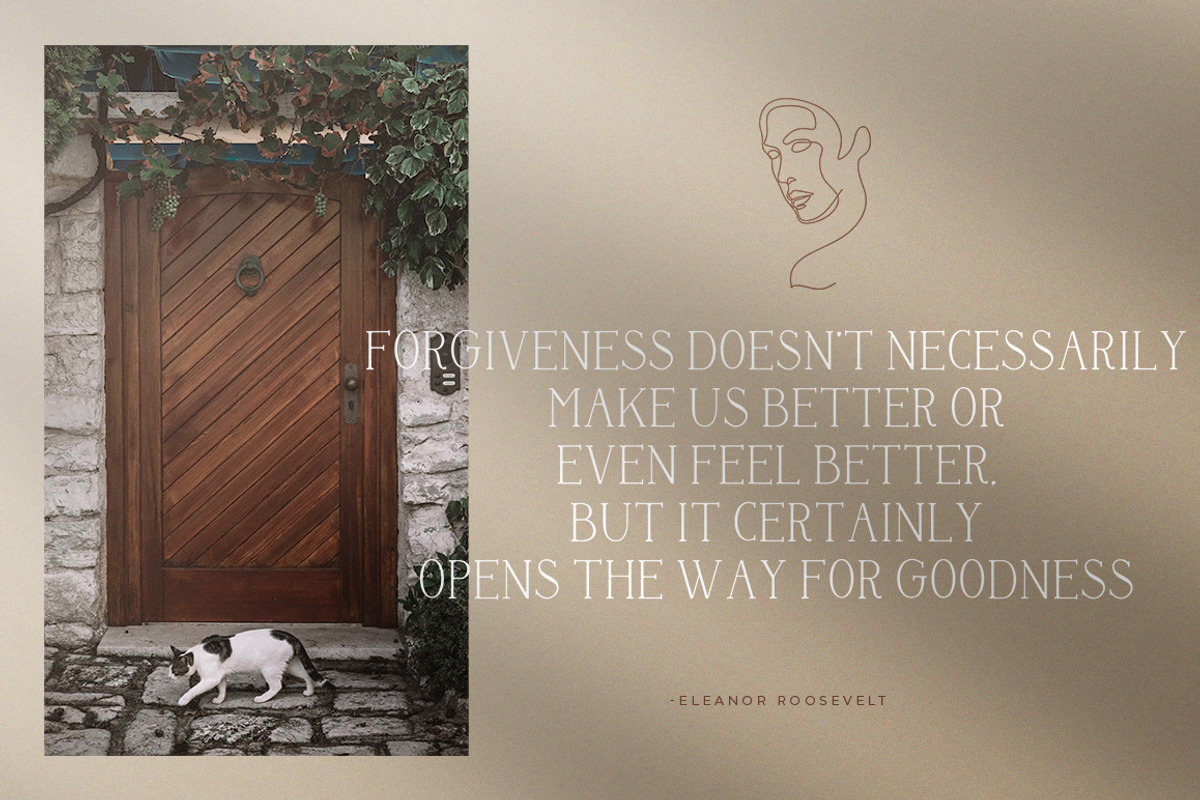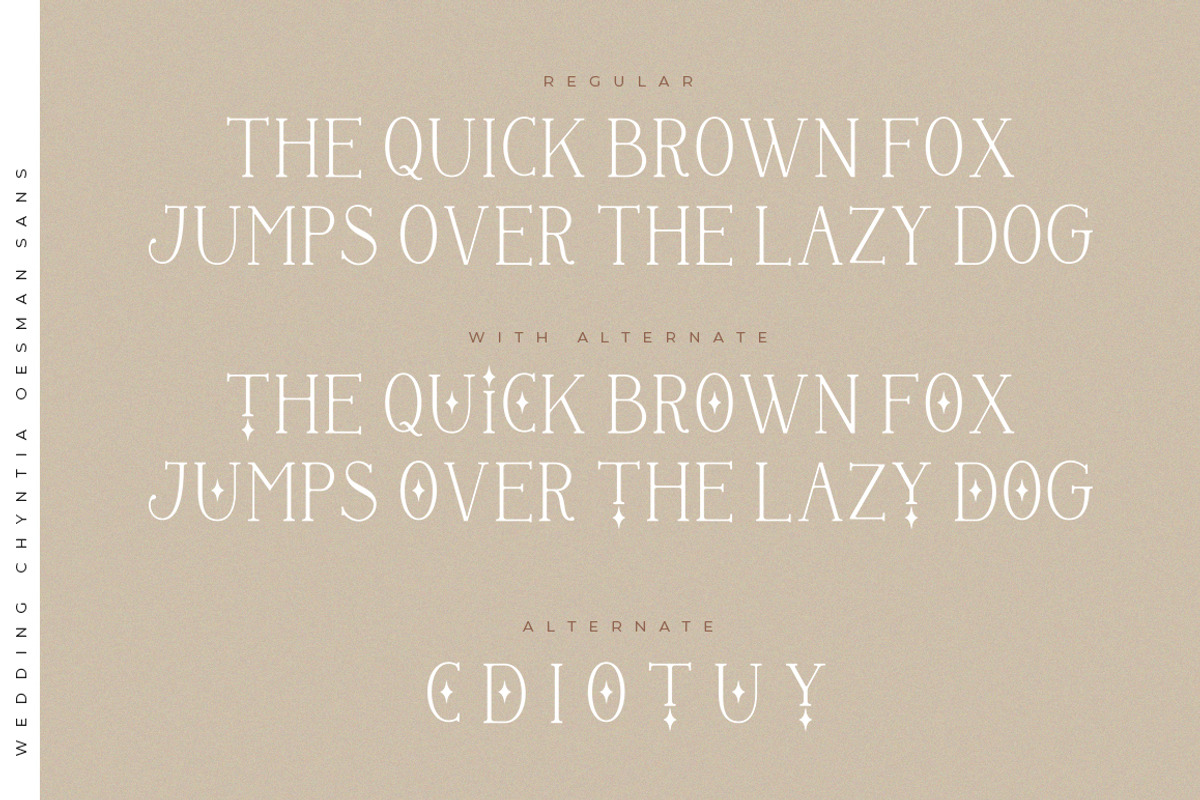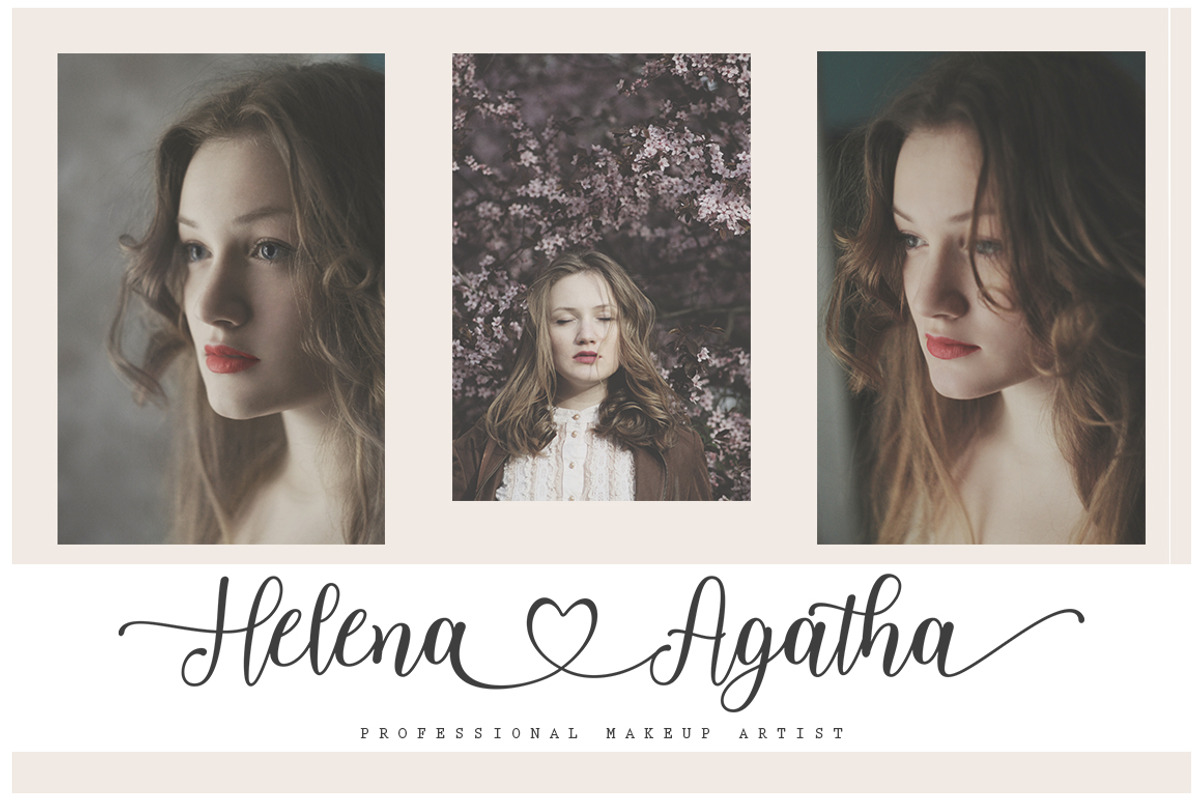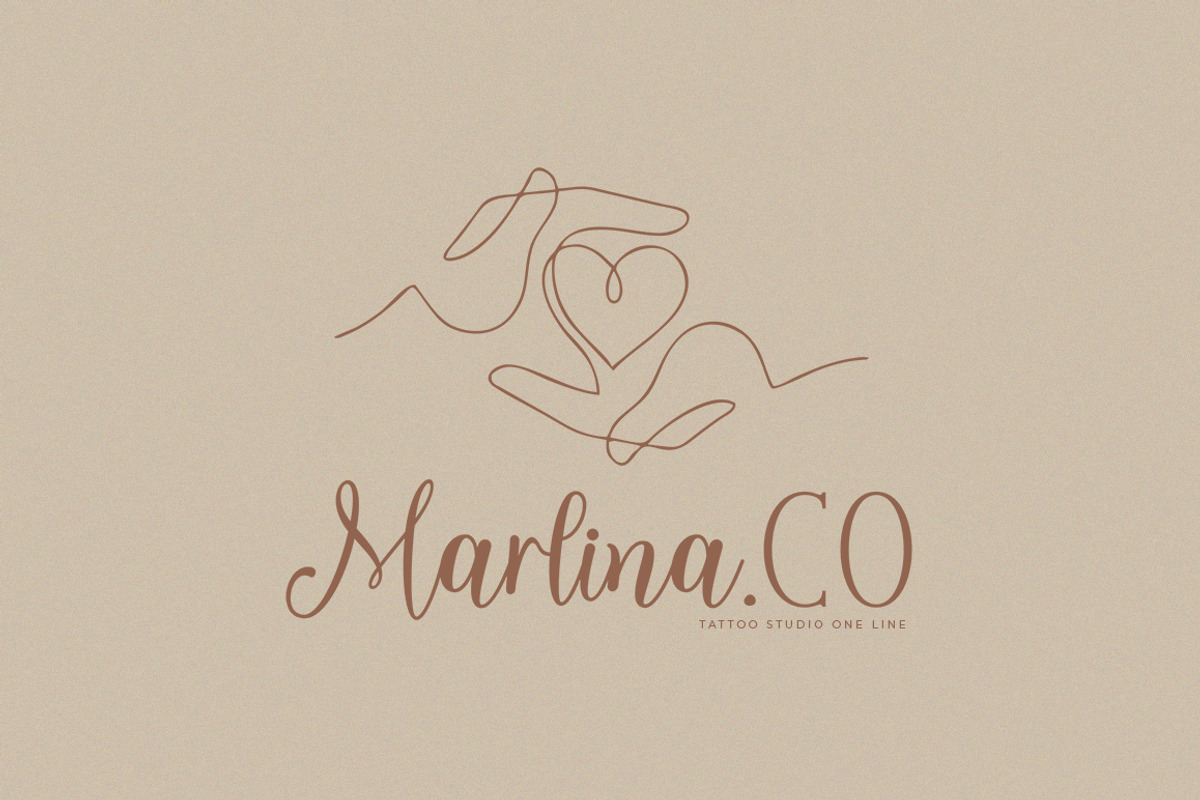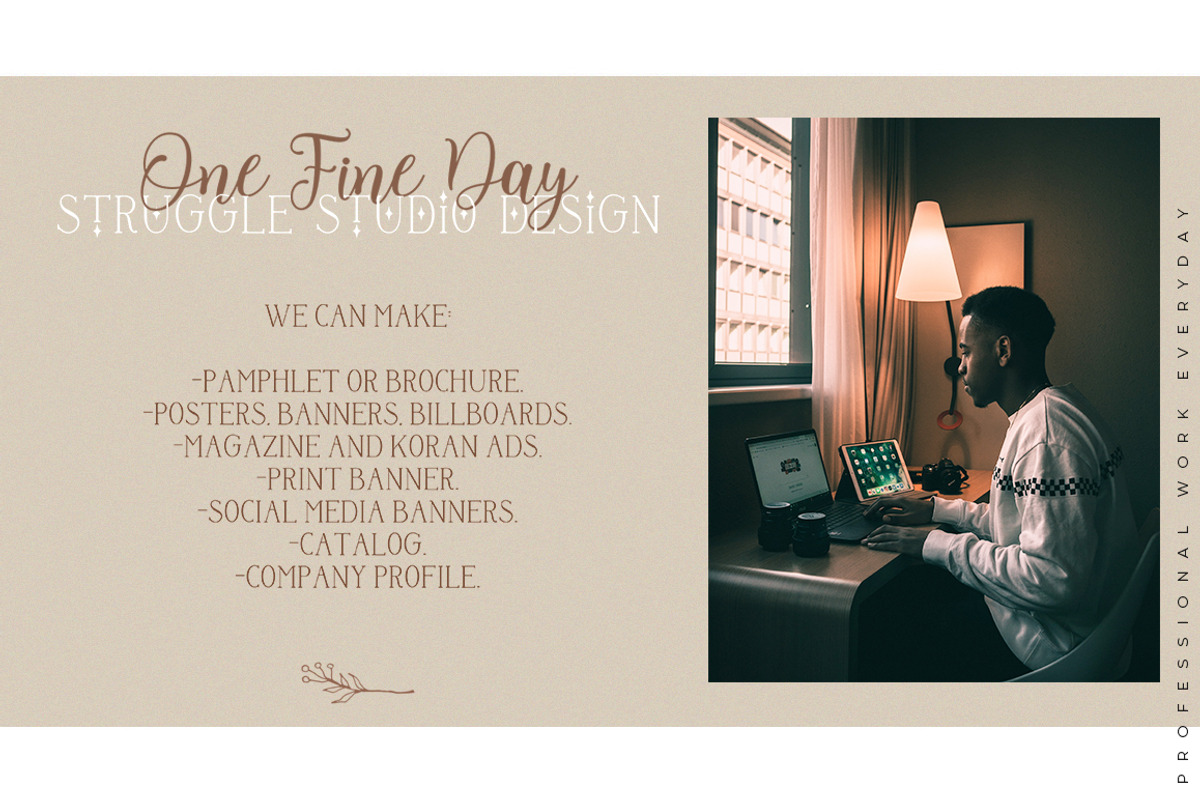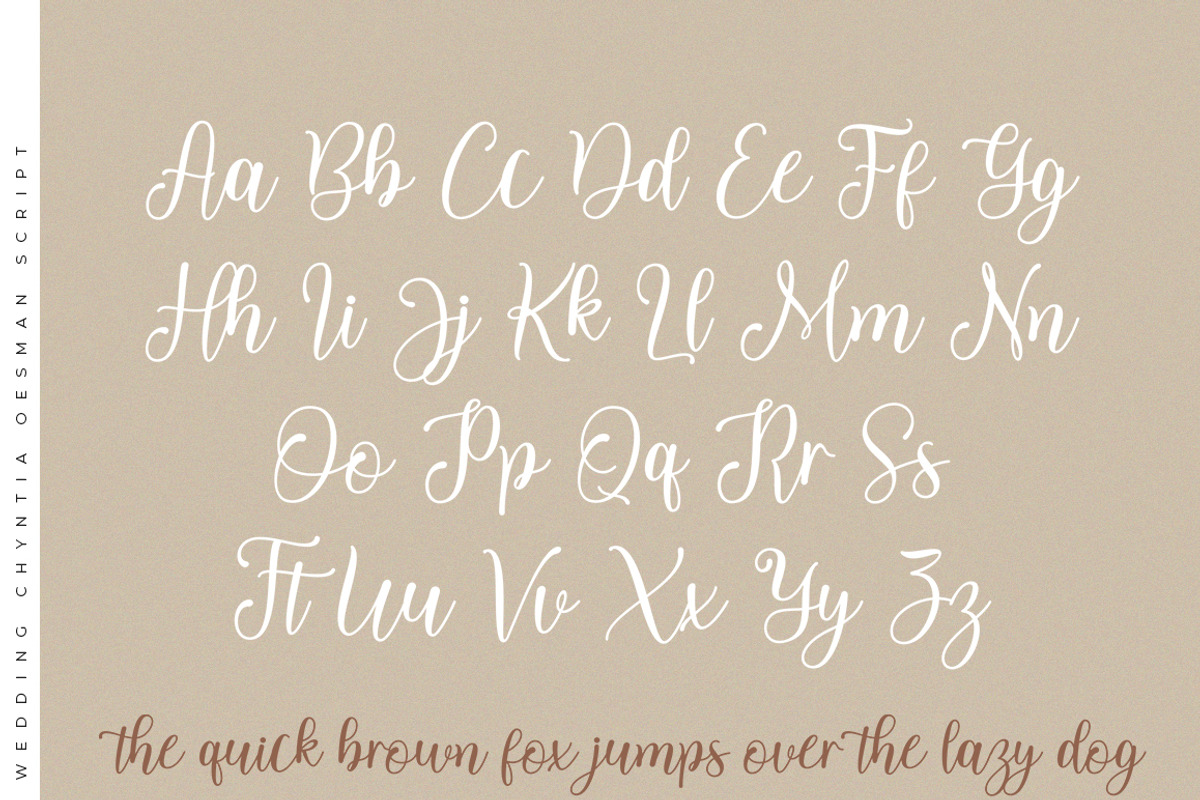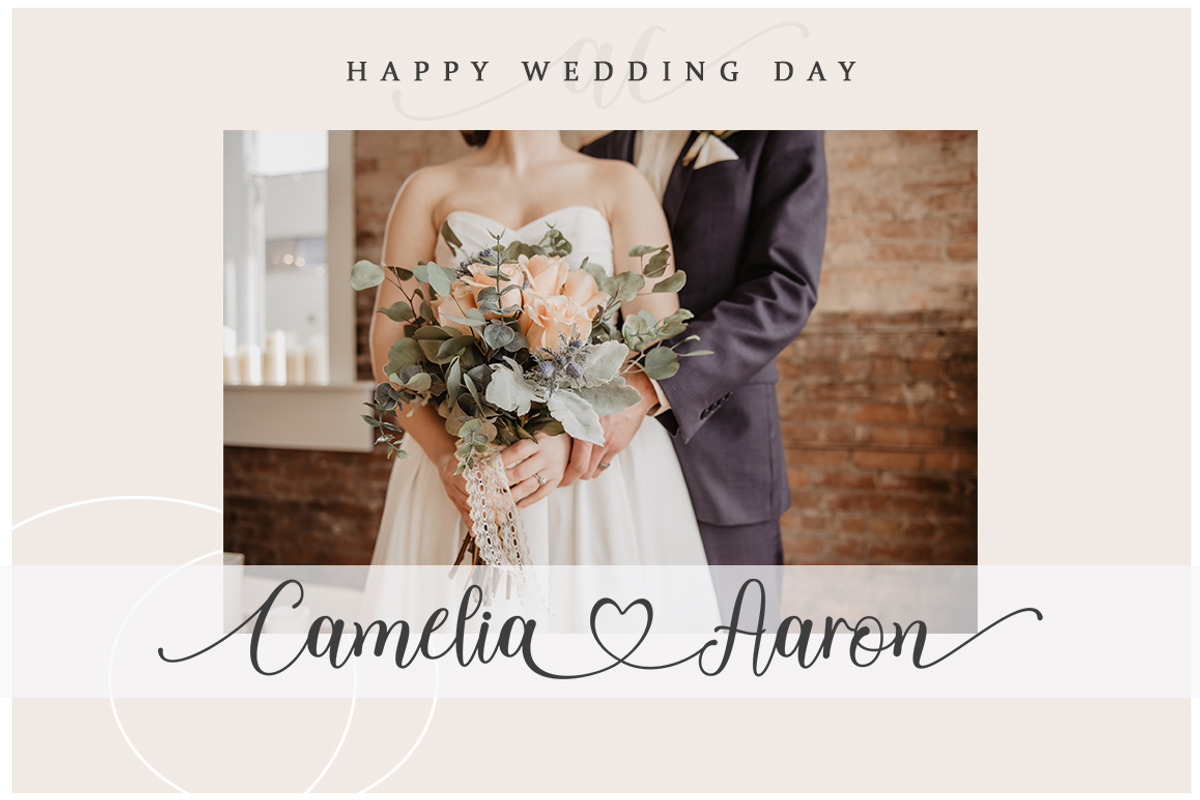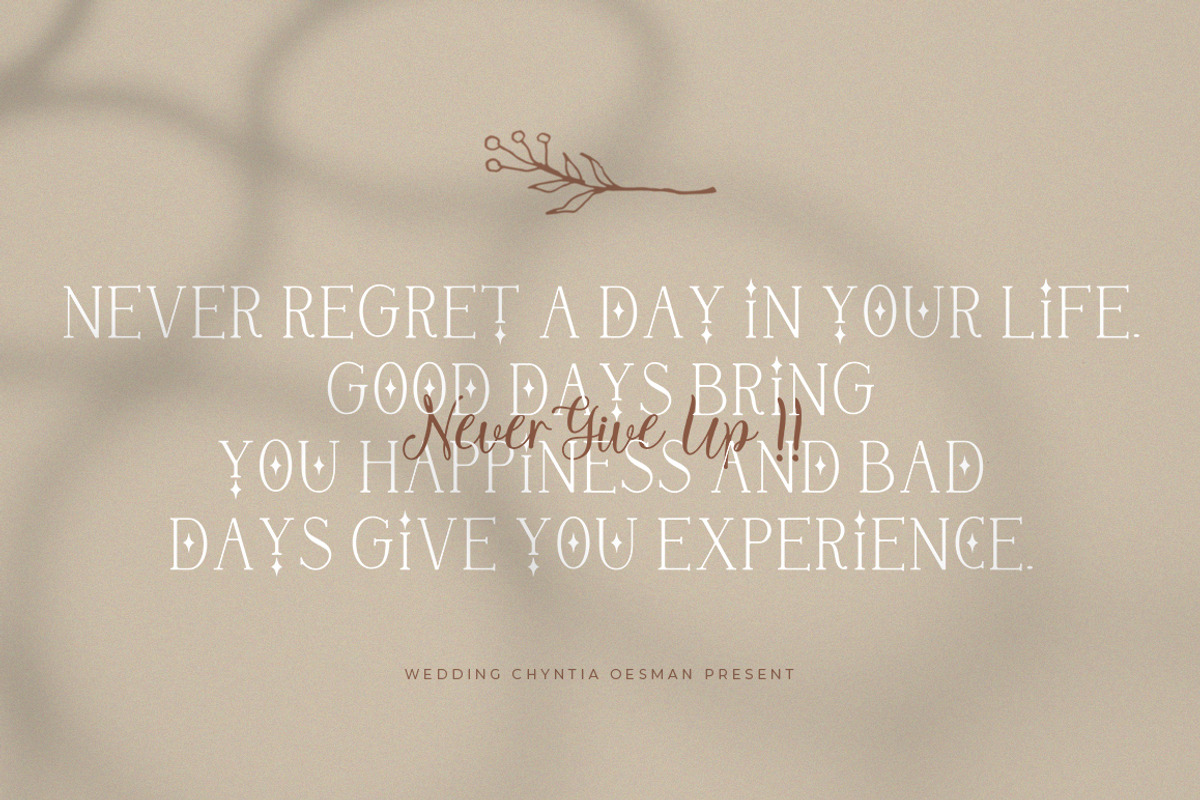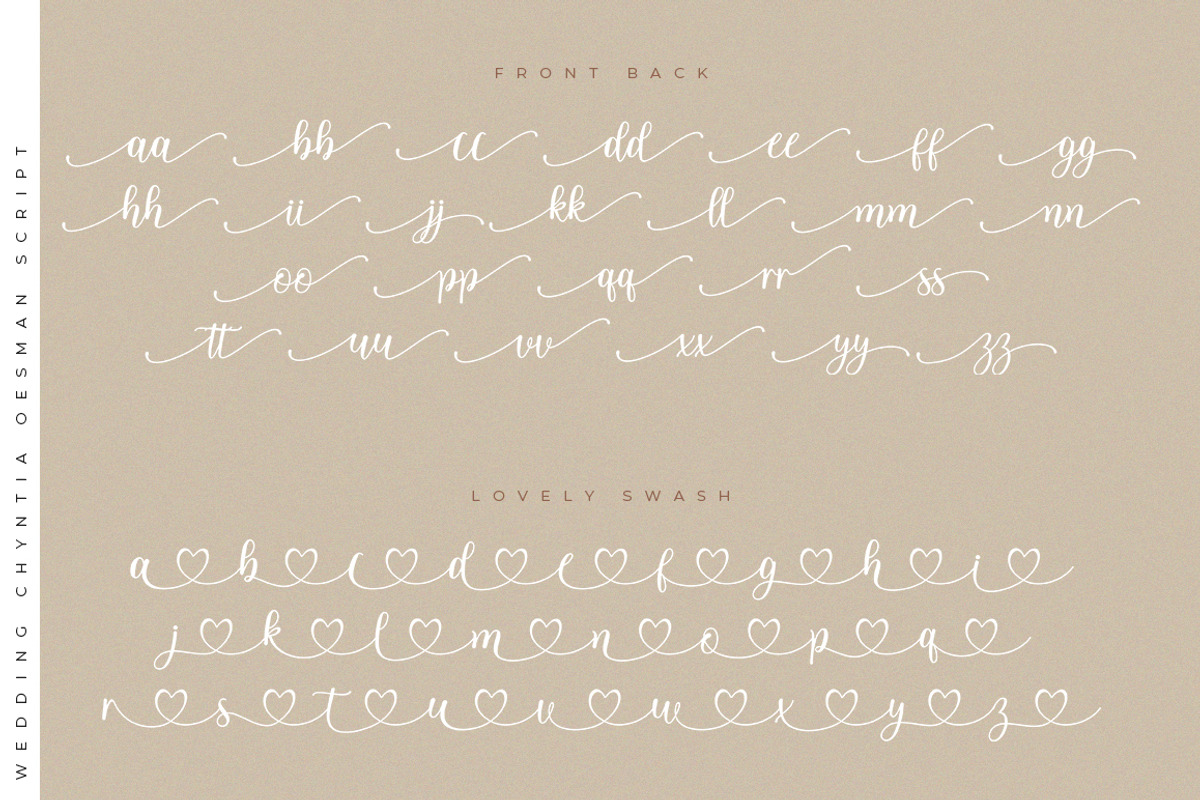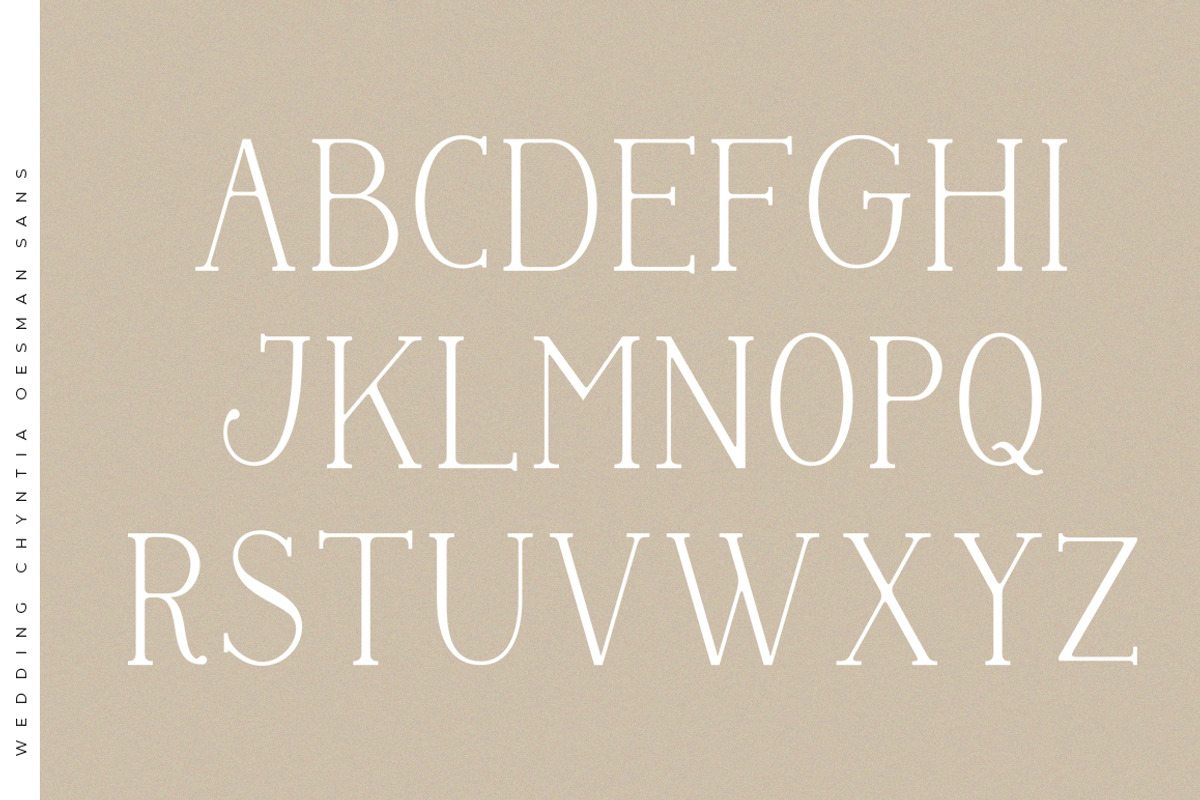
Wedding Chyntia Oesman
Wedding Chyntia Oesman was built with OpenType features and includes beginning and ending swashes, numbers, punctuation, alternates, ligatures and it also supports other languages.
Wedding Chyntia Oesman is an organic handwritten font suitable for branding, signatures, wedding invitations, promotions, product packaging and other needs. This font is modern, simple, but still original. You'll get a full set of lowercase and uppercase letters, numbers and punctuation, multilingual symbols, lowercase start and end swashes, extra ligatures and swashes.